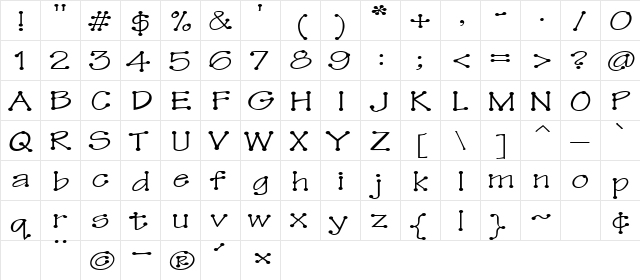
TinkerToyExtended Regular Font Preview
TinkerToyExtended Regular
Design Context for TinkerToyExtended Typeface
TinkerToyExtended is a composed and adaptable typeface that performs quietly and consistently across a wide range of design contexts.